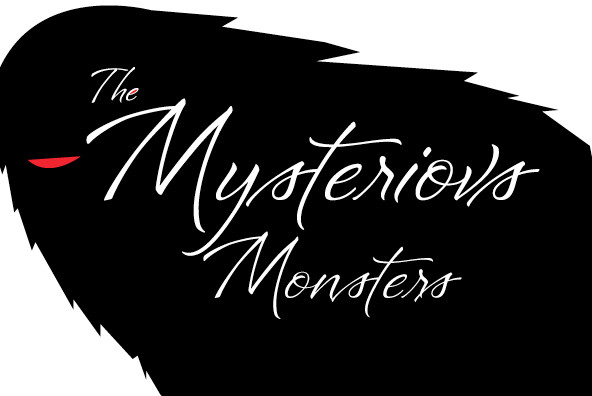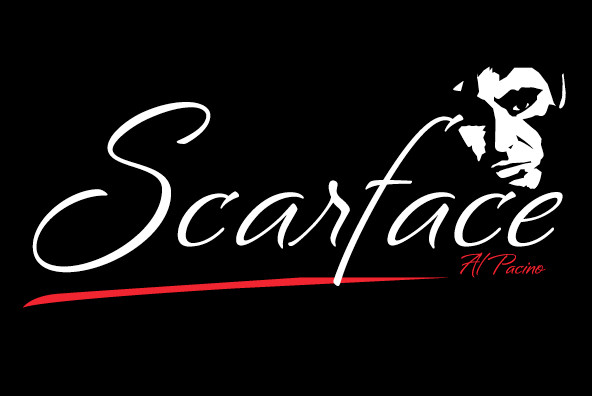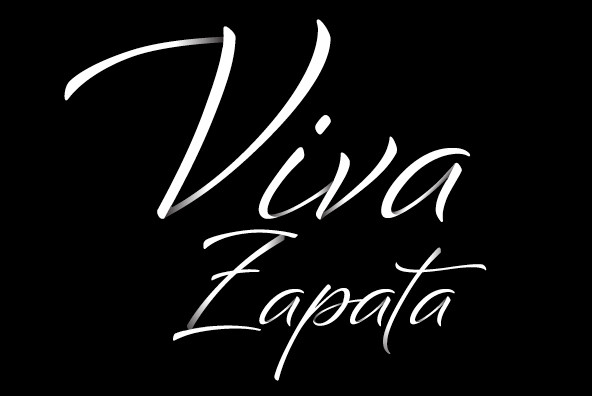
Bianca is lively and full of excitement! This hand lettered script captures attention and calls for a closer look.Featuring over 50 alternate glyphs, it will have your audience wondering - is it a typeface – or was it was written by hand?